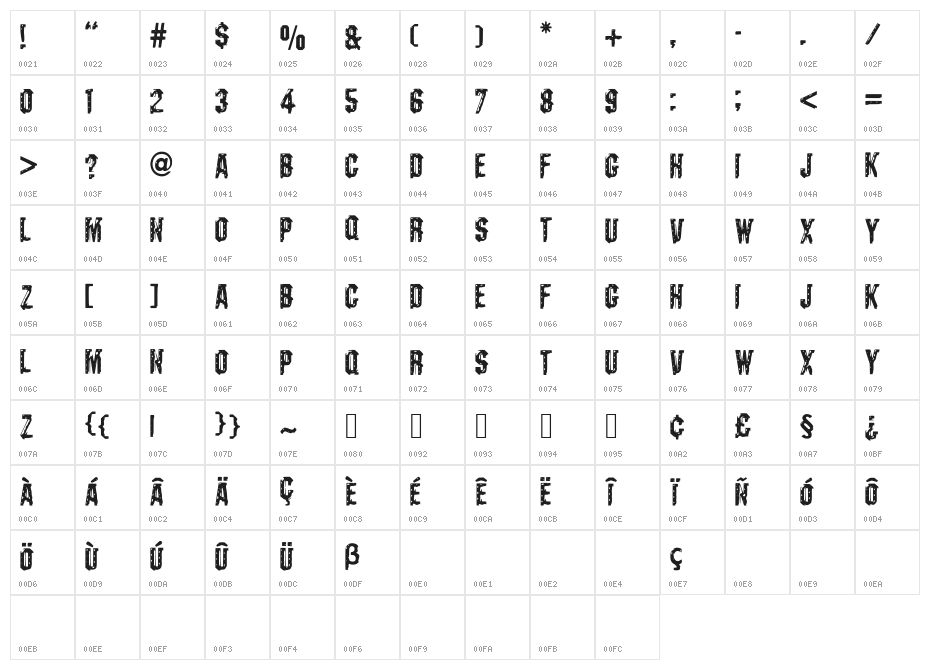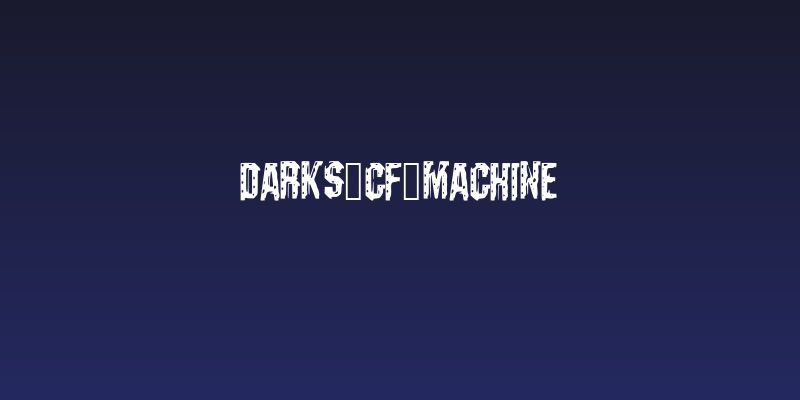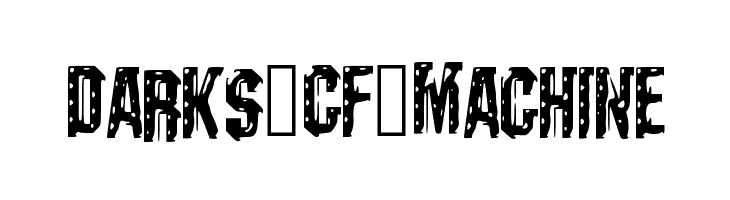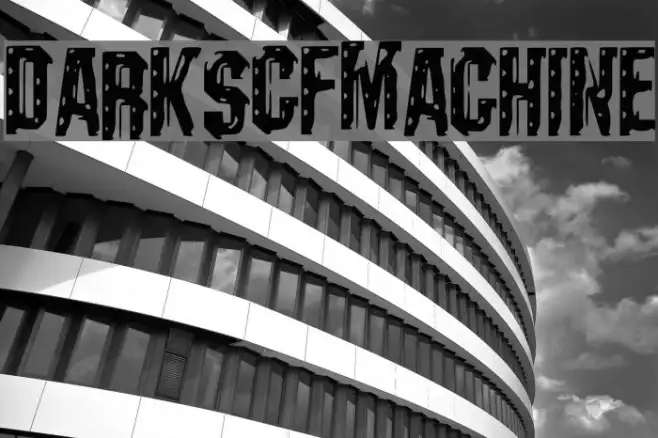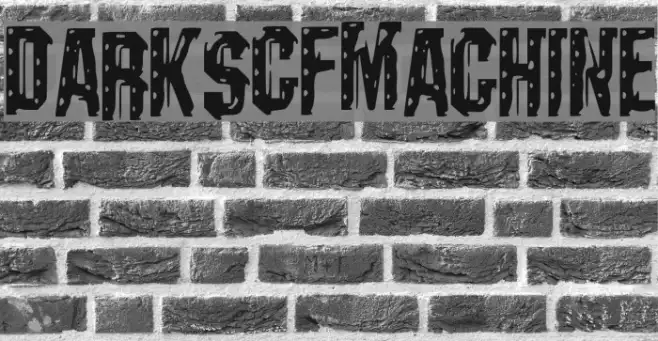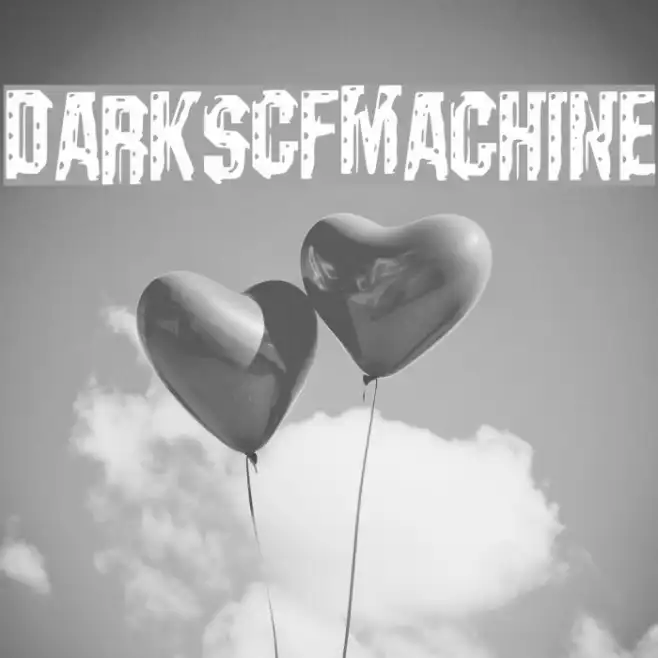
Darks_CF_Machine Font
Darks_CF_Machine Description
This font features a bold, industrial design with a distressed, mechanical appearance. The characters are constructed with a stencil-like quality, incorporating rivet-like dots and angular cuts that give it a rugged, machine-inspired look. The uppercase and lowercase letters maintain a consistent style, with sharp edges and a blocky structure. The numbers and special characters follow the same aesthetic, ensuring a cohesive visual theme throughout. The font's unique style makes it stand out, ideal for projects that require a strong, industrial feel.
| Overall Style | Industrial, Mechanical |
| Proposed Projects | Ideal for industrial-themed posters, machinery branding, video game graphics, and any project requiring a rugged, mechanical aesthetic. |